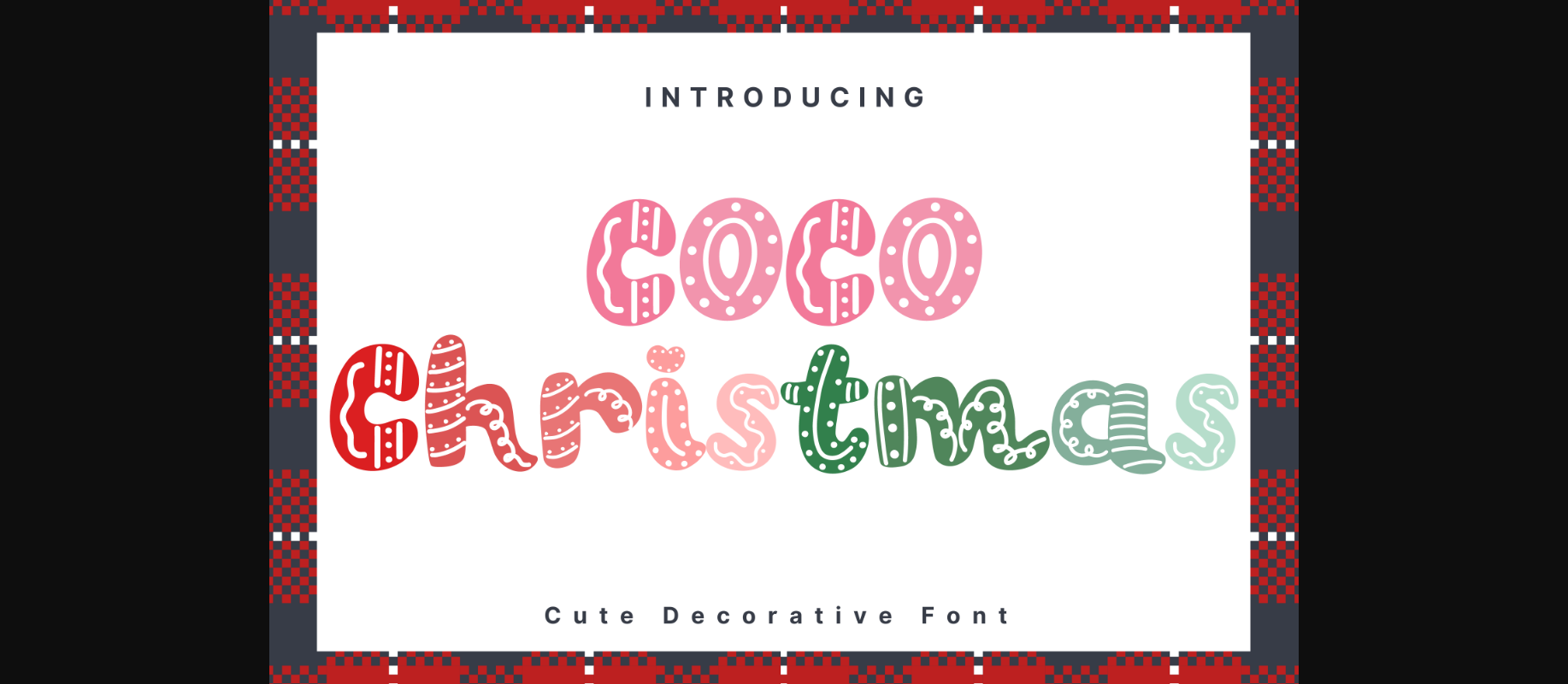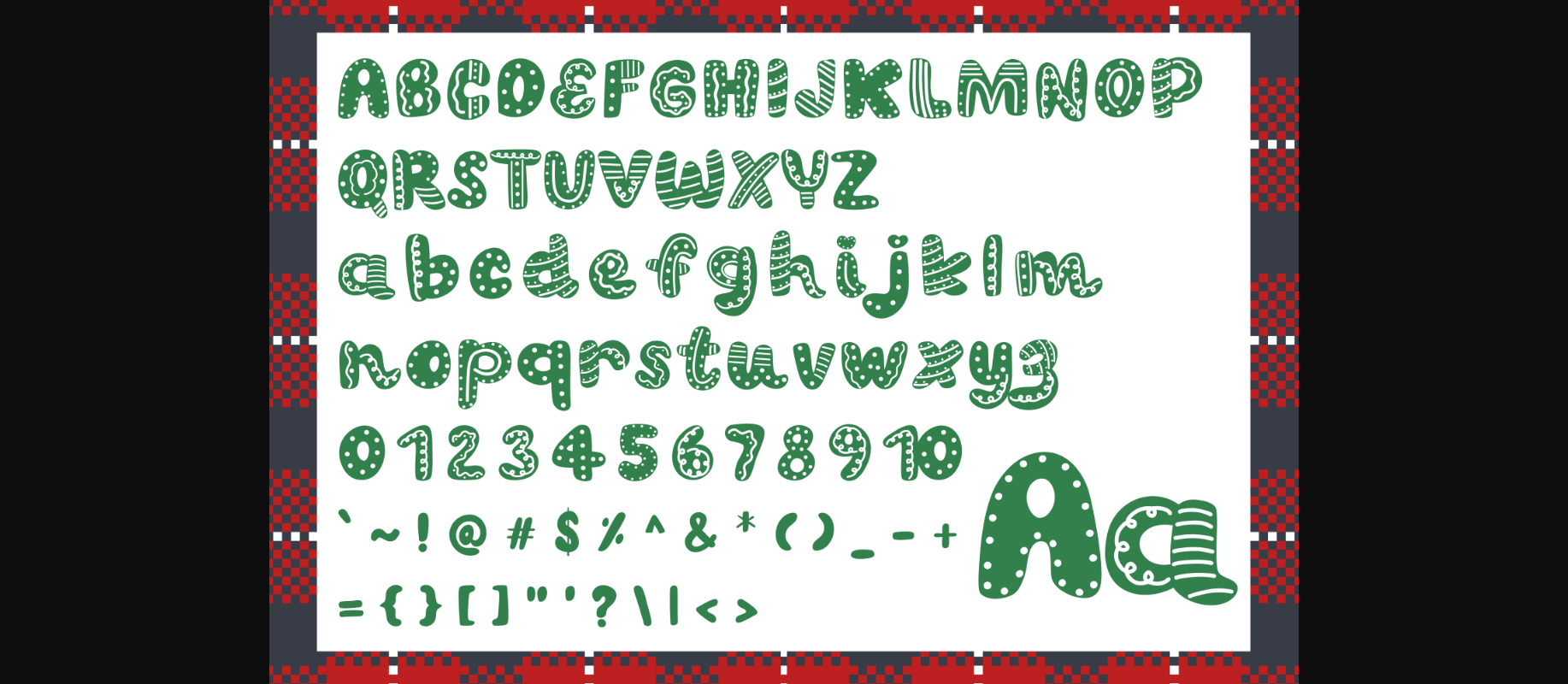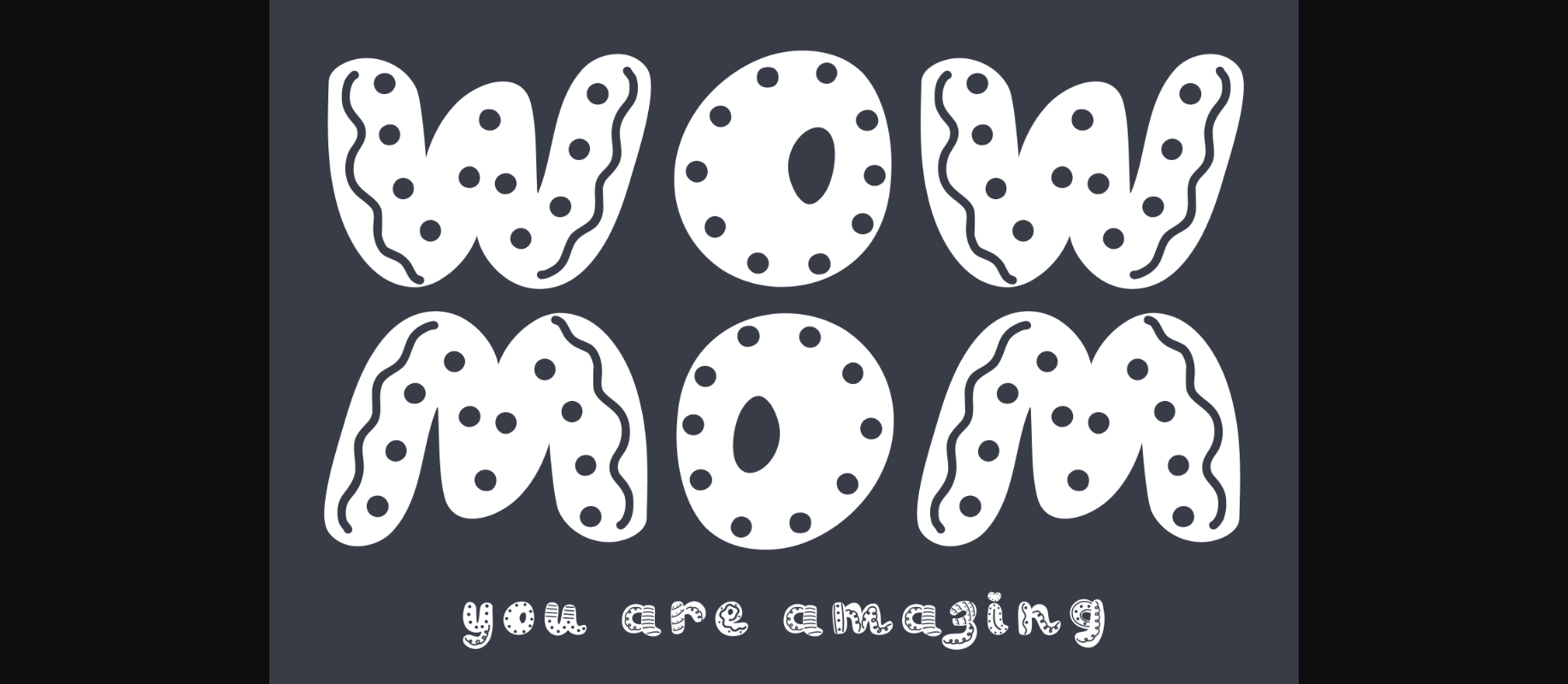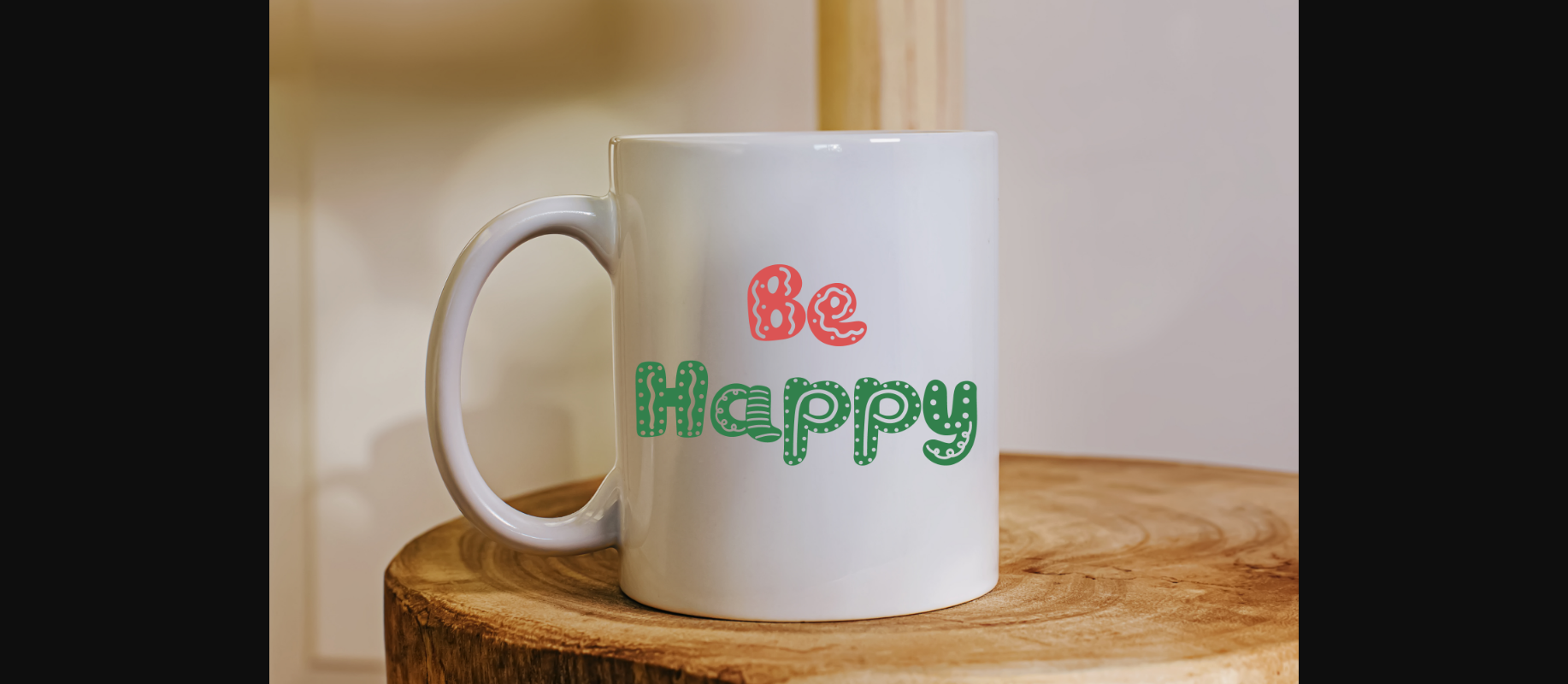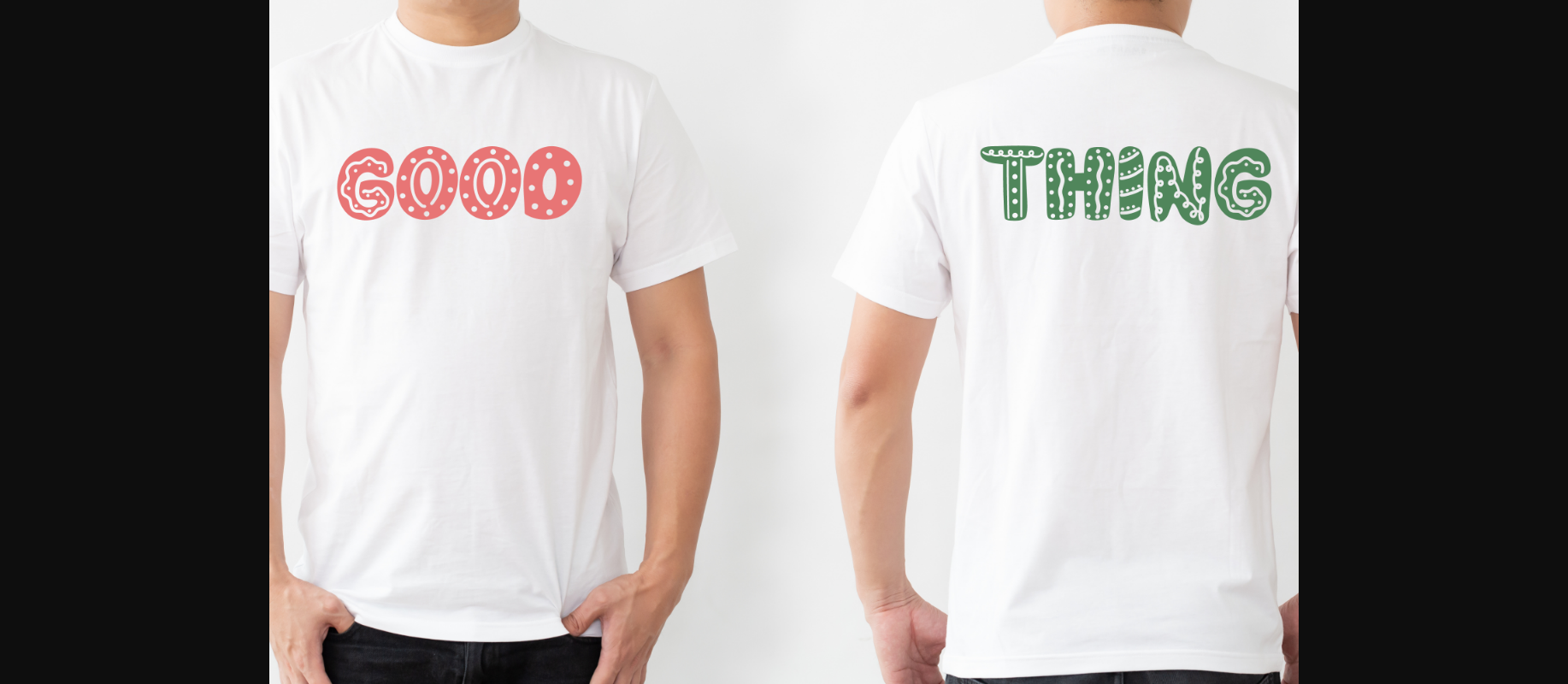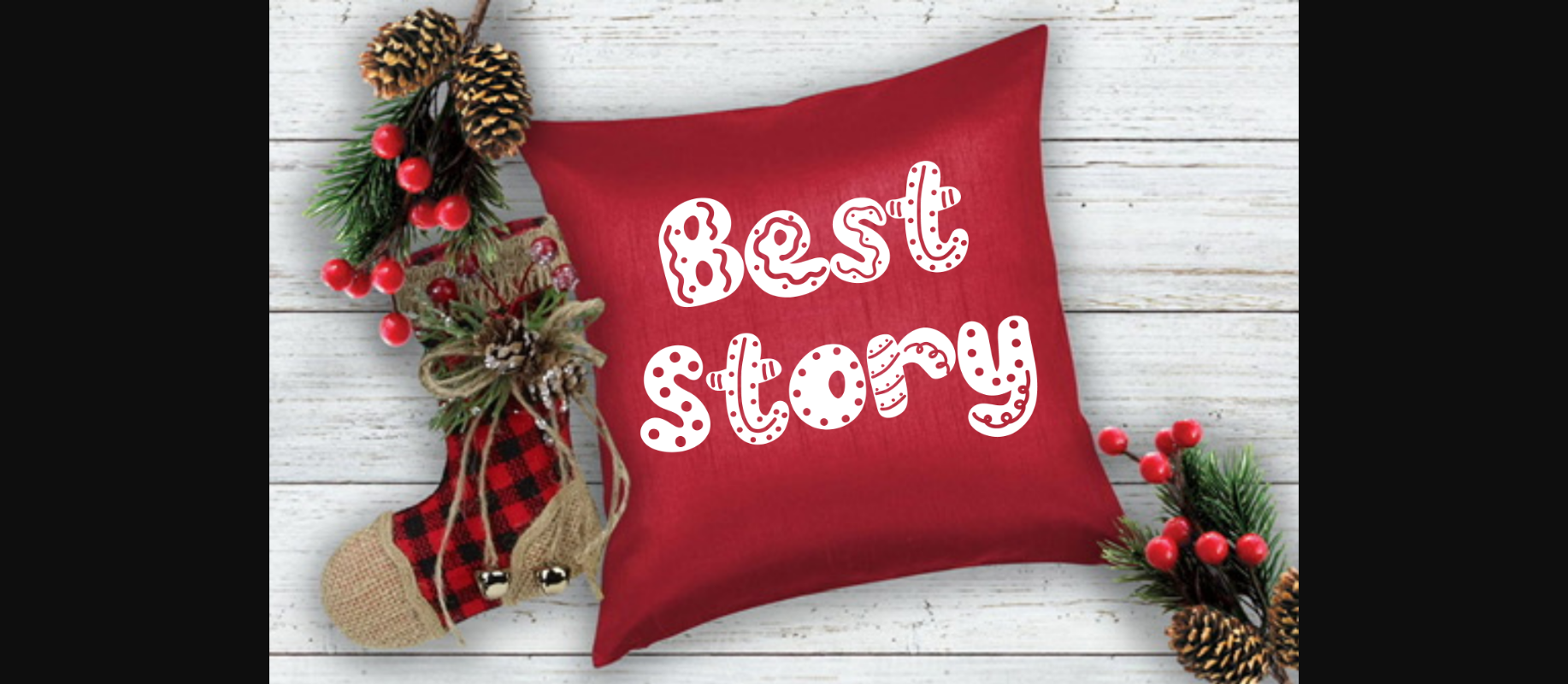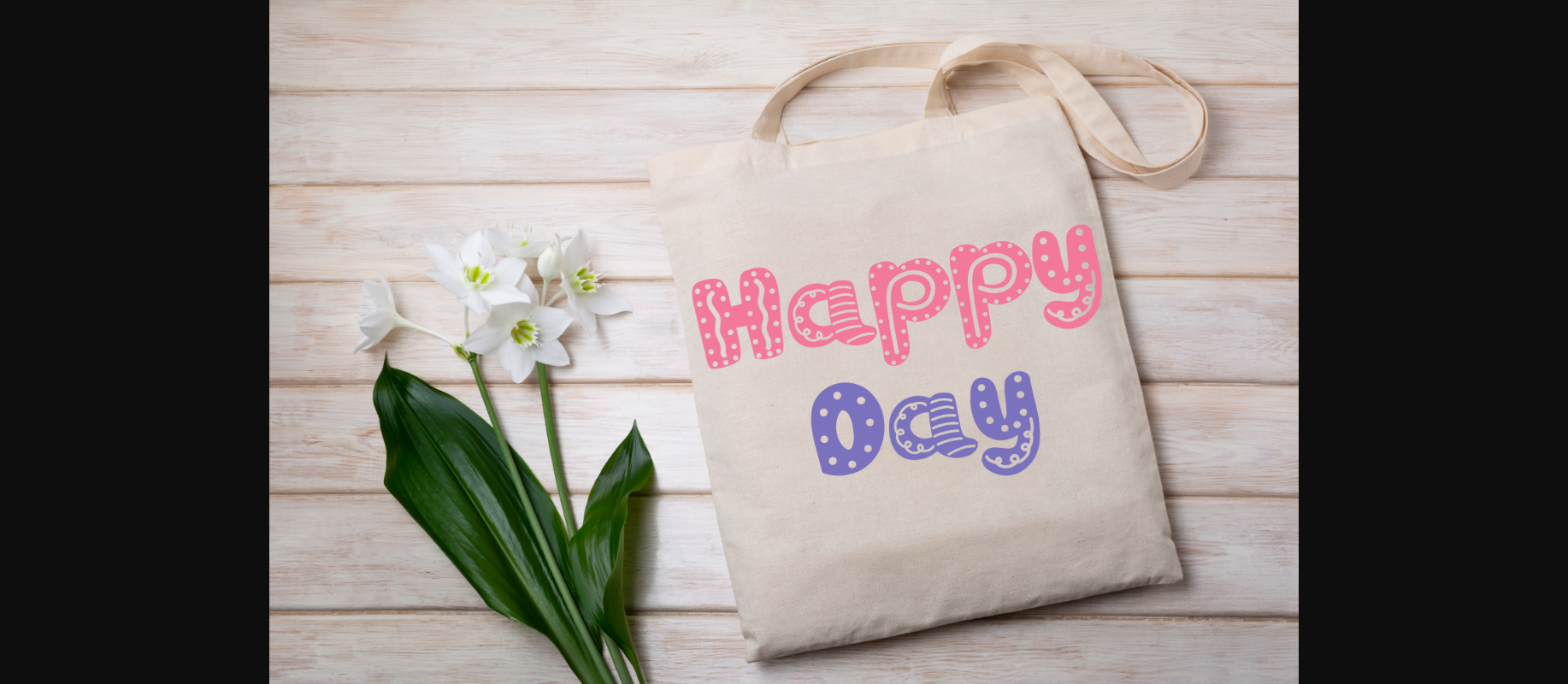
HomeDecorative FontsCoco Christmas Font Decorative Fonts Coco Christmas Font FacebookXPinterestWhatsApp 1 of 9 ... Coco Christmas Font Poster 2... Coco Christmas Font Poster 3... Coco Christmas Font Poster 4... Coco Christmas Font Poster 5... Coco Christmas Font Poster 6... Coco Christmas Font Poster 7... Coco Christmas Font Poster 8... Coco Christmas Font Poster 9... About Coco Christmas Font Coco Christmas Style is a whimsical and clean decorative font. It can easily be matched to an incredibly large set of projects, so add it to your creative ideas and notice how it makes them stand out! DOWNLOAD NOW People also explored Barisha Script Font Yowllow Font Industrial Revolution Font Dogmatic Font Caitya Script Font Signature Script Allema Font Daylight Font Dear Santa Font 321 0 TagsCoco Christmas Font Previous articleRetro Photograph FontNext articleDeep Freezer Font LEAVE A REPLY Cancel reply Comment: Please enter your comment! Name:* Please enter your name here Email:* You have entered an incorrect email address! Please enter your email address here Website: Save my name, email, and website in this browser for the next time I comment. Personal Use Free Still Time Personal Use Free Read more about this font Twisty Girlz Personal Use Free Read more about this font Milda Personal Use Free Read more about this font Beautiful Personal Use Free Read more about this font BLOG How to Install and Use Fonts on Windows, macOS, and Web Projects How to Install and Use Fonts on Windows, macOS, and Web Projects Fonts are a crucial part of design and branding. Whether you’re designing a... Exploring Font Trends Transform Your Website: Elevate Your Typography with 7 Best Web Font Generators Where to Buy American Fonts Online in 2024